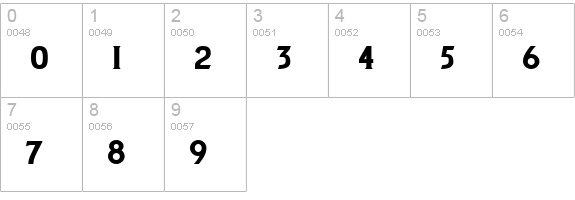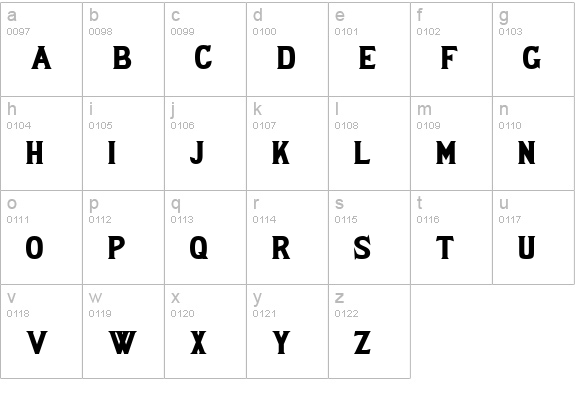
LewishamBold Font Details
LewishamBold font is a striking and modern typeface that exudes confidence and sophistication. With its bold and expressive design, this font is perfect for making a statement in any creative project. The strong lines and sharp edges of LewishamBold make it a standout choice for headlines, logos, and branding materials. But the best part? LewishamBold is available for free download at FontsMarket.com! This means you can easily add this stylish font to your collection without breaking the bank. Whether you're a designer looking to elevate your work or someone in need of a fresh font for a project, LewishamBold is sure to impress with its sleek and contemporary look. Don't miss out on this amazing opportunity to enhance your designs with LewishamBold font - download it today and let your creativity shine!